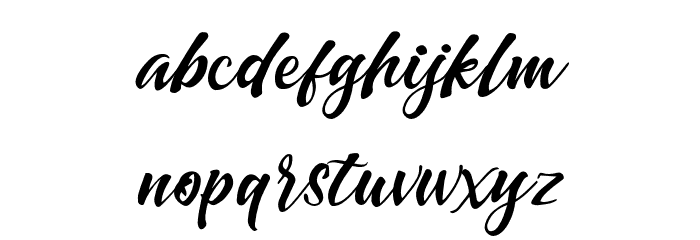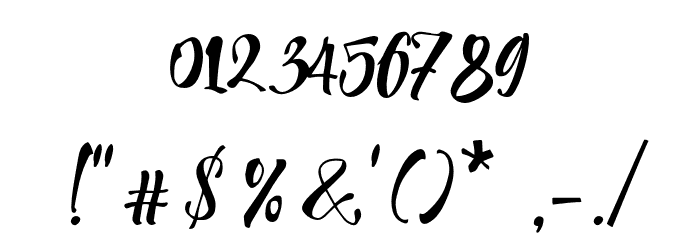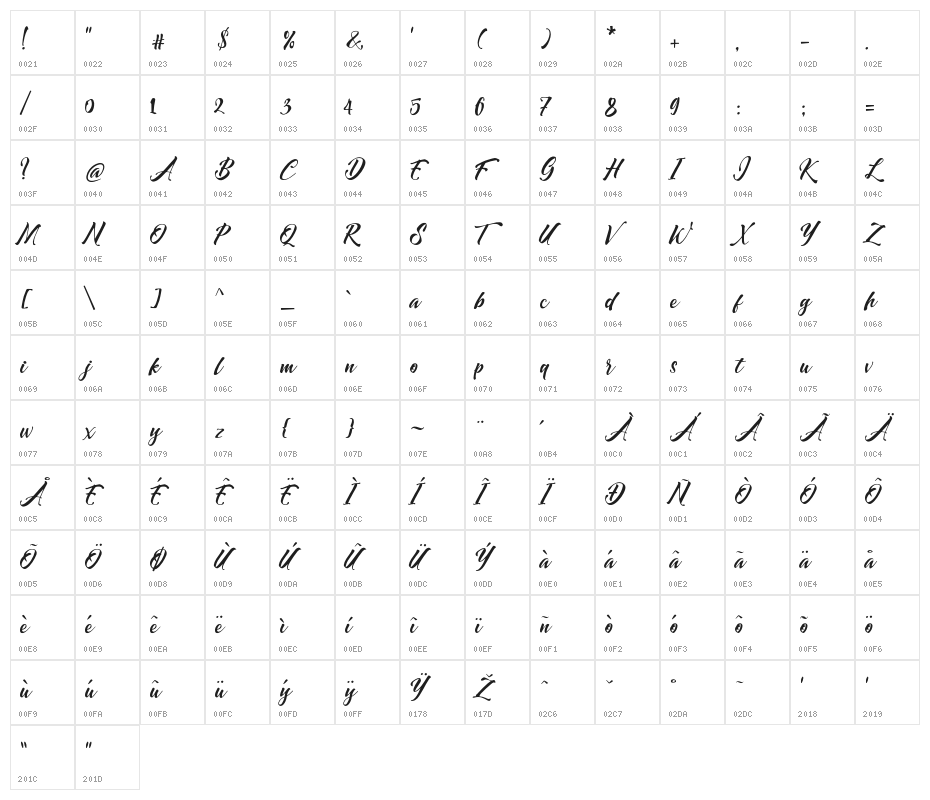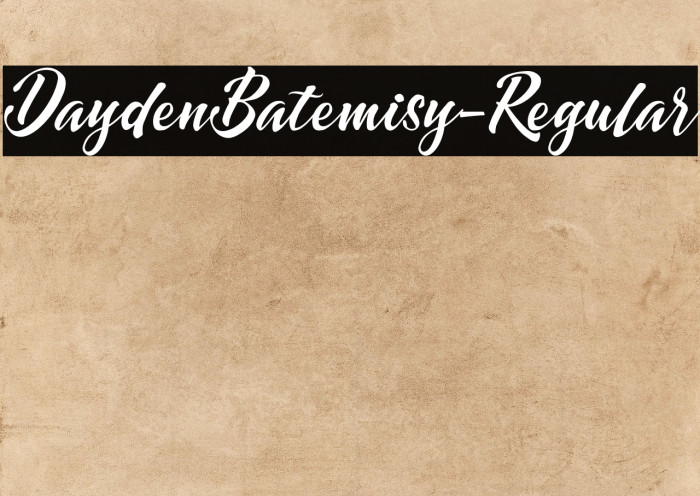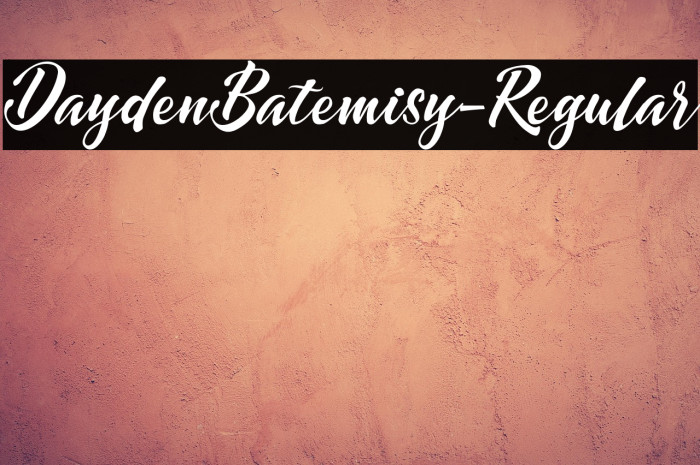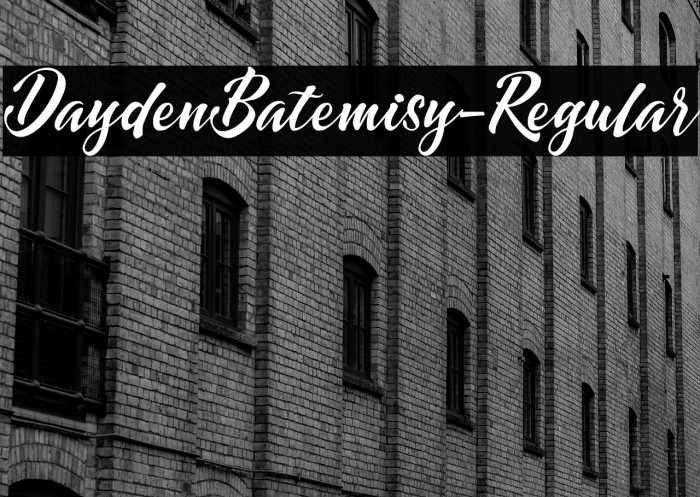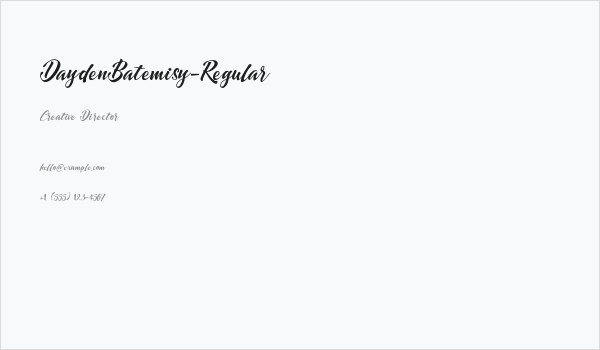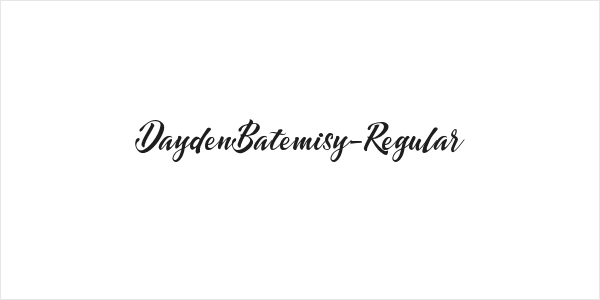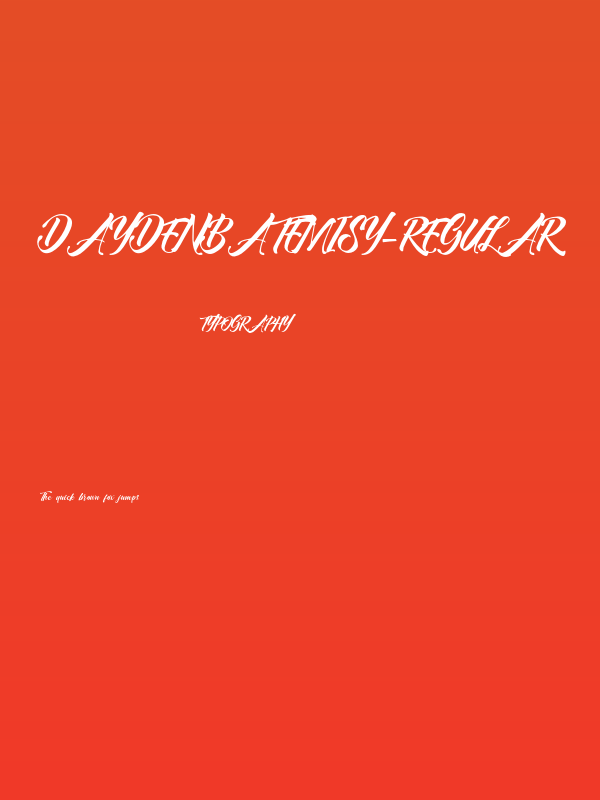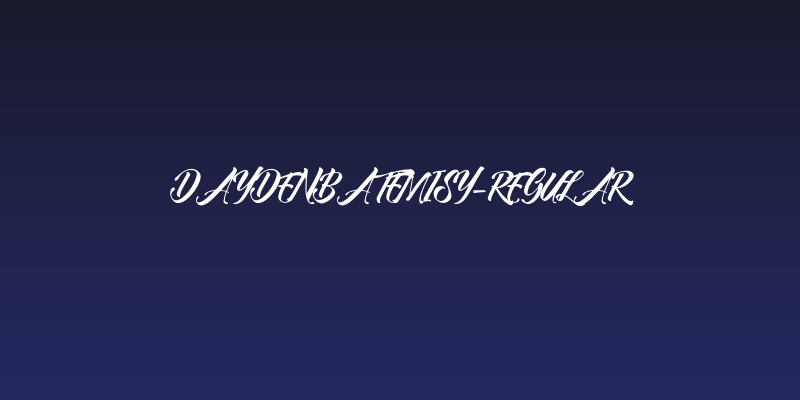
DaydenBatemisy-Regular Font
This font showcases a dynamic and flowing script style, characterized by its elegant and cursive letterforms. The uppercase letters exhibit a dramatic flair with sweeping curves and intricate details, while the lowercase letters maintain a consistent fluidity, enhancing readability. The numerals and special characters are crafted with the same attention to detail, ensuring a cohesive look across all glyphs. The overall design exudes a sense of sophistication and artistry, making it suitable for creative and expressive projects.
A dynamic and elegant script font with flowing cursive letterforms.
- Proposed Projects: Ideal for wedding invitations, branding, greeting cards, and artistic projects requiring a touch of elegance.
- Use Case: Logos, Invitations, Artistic projects